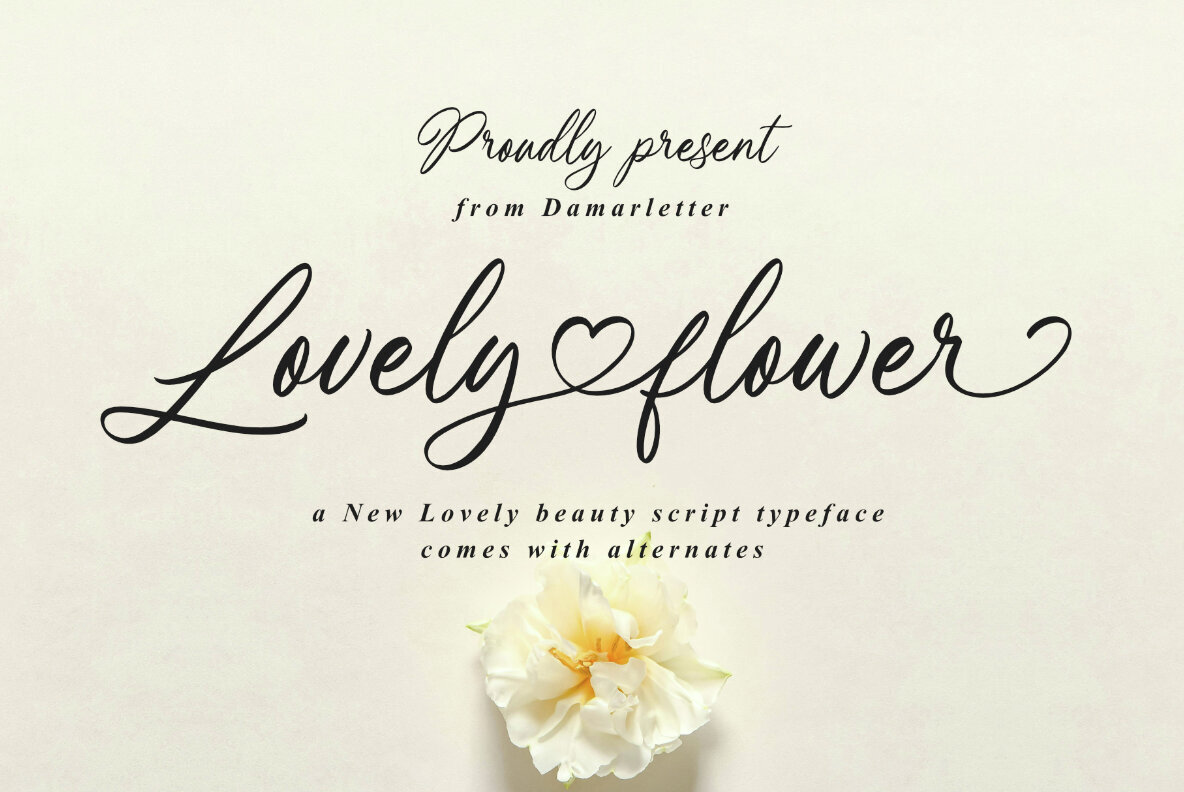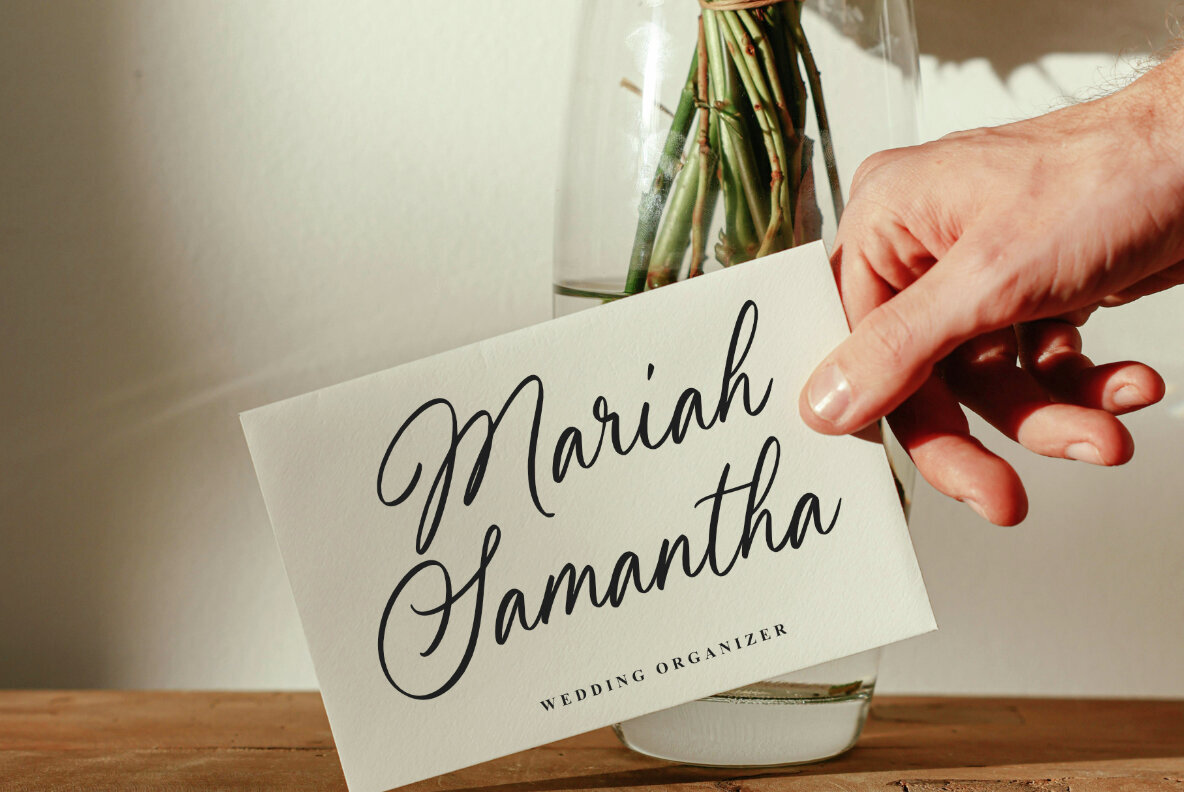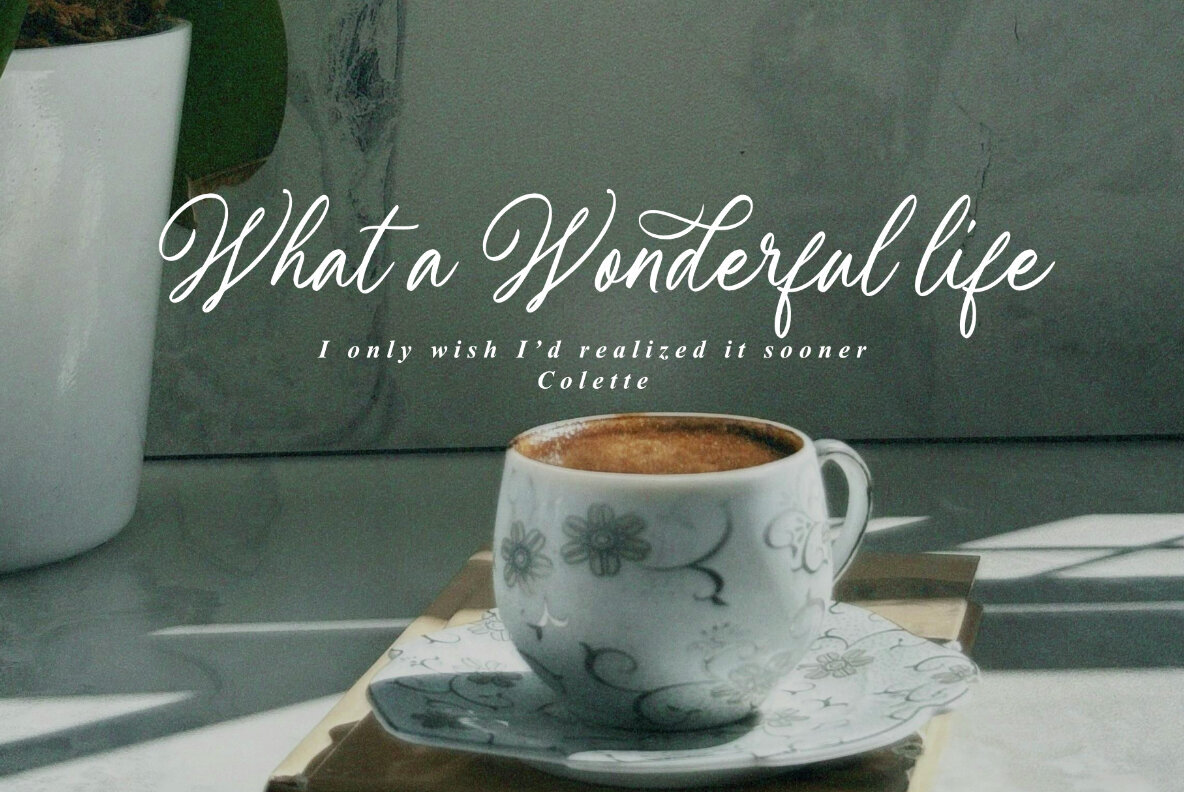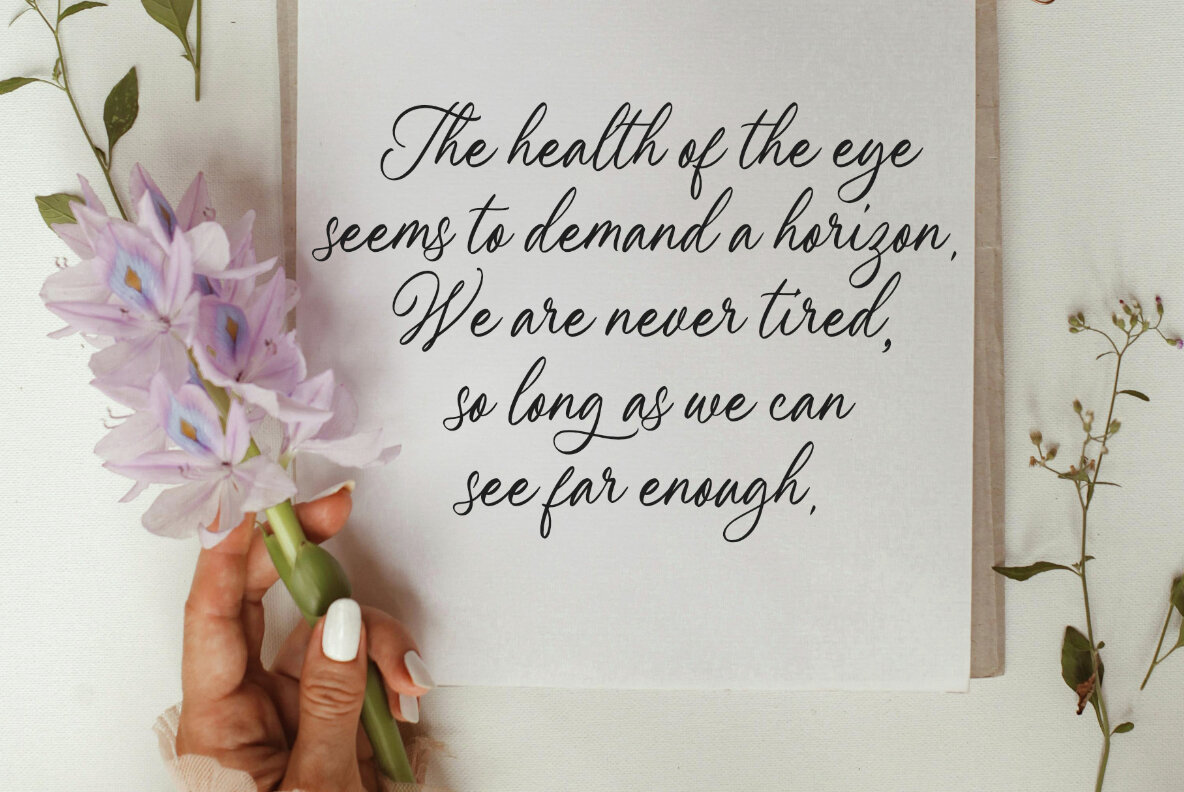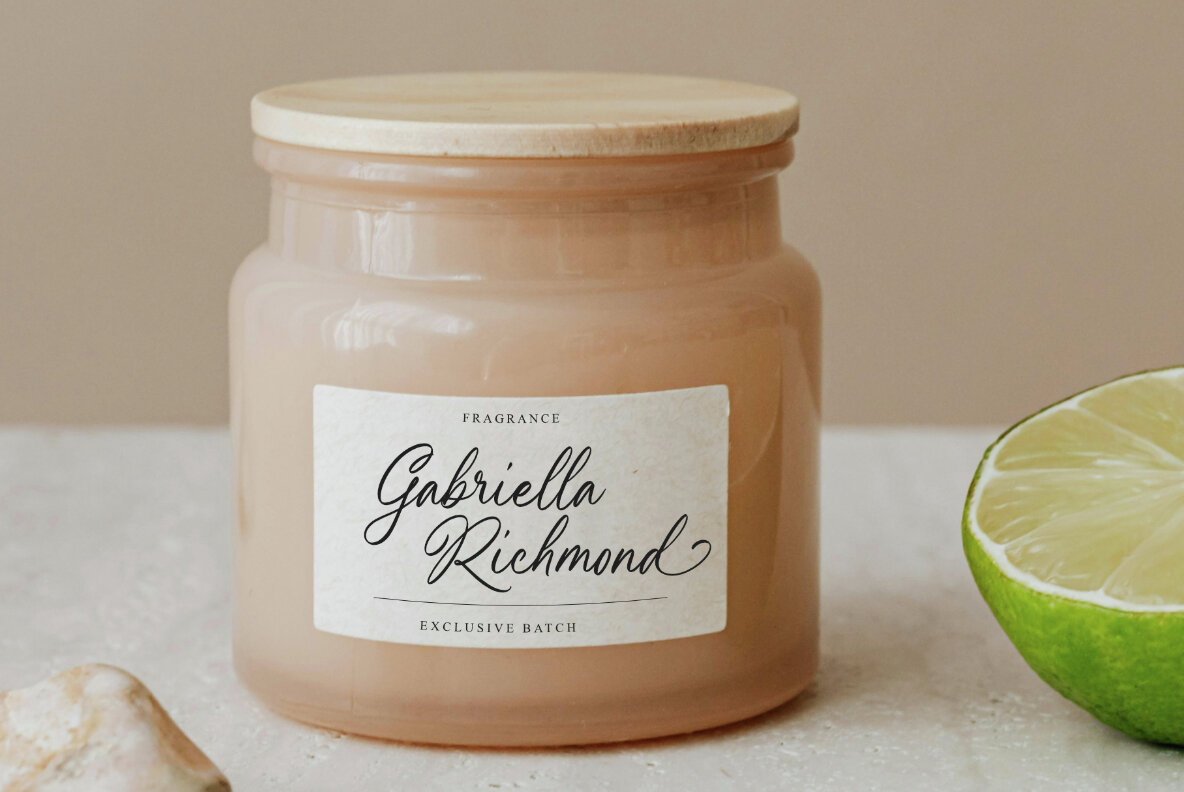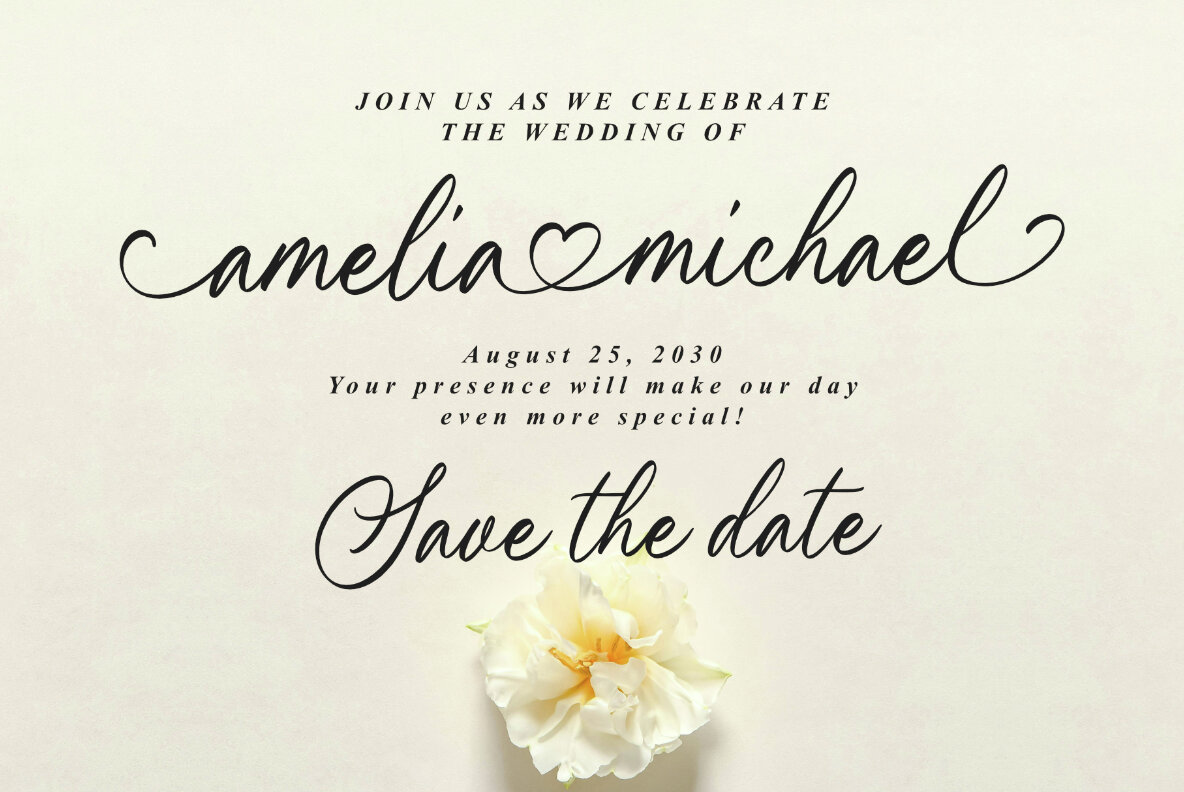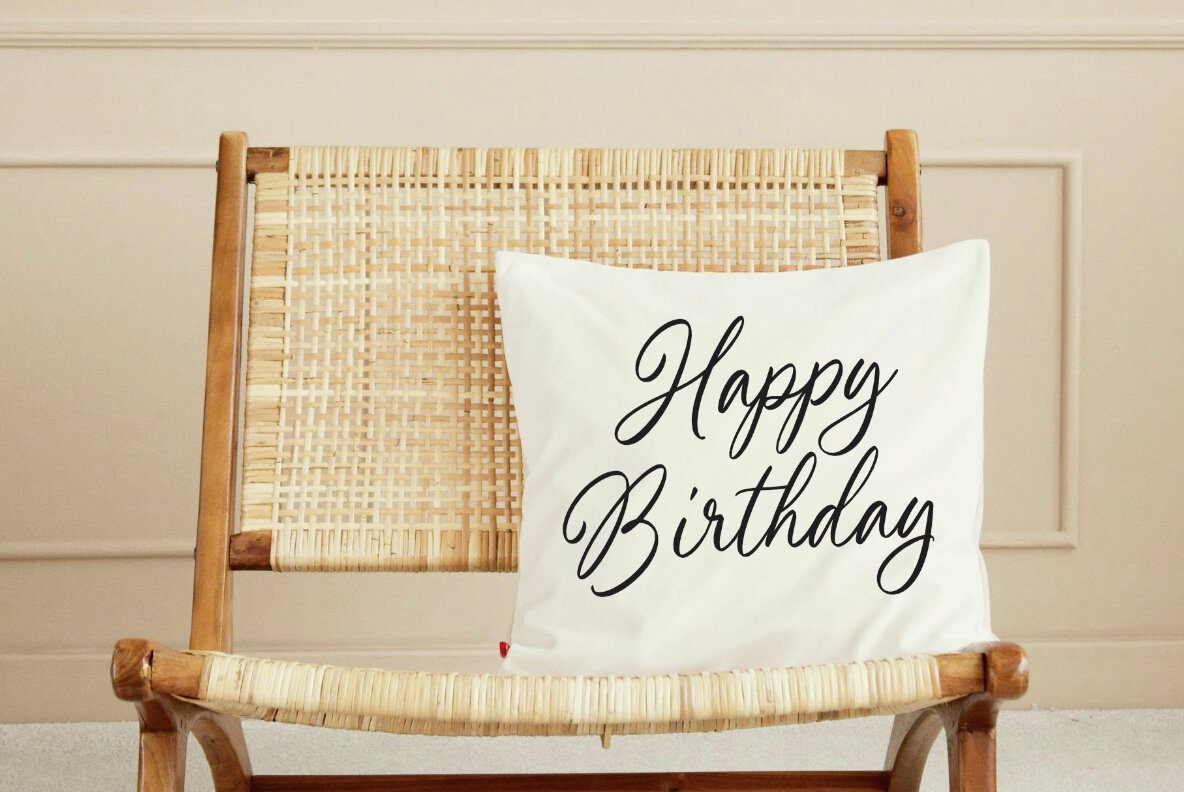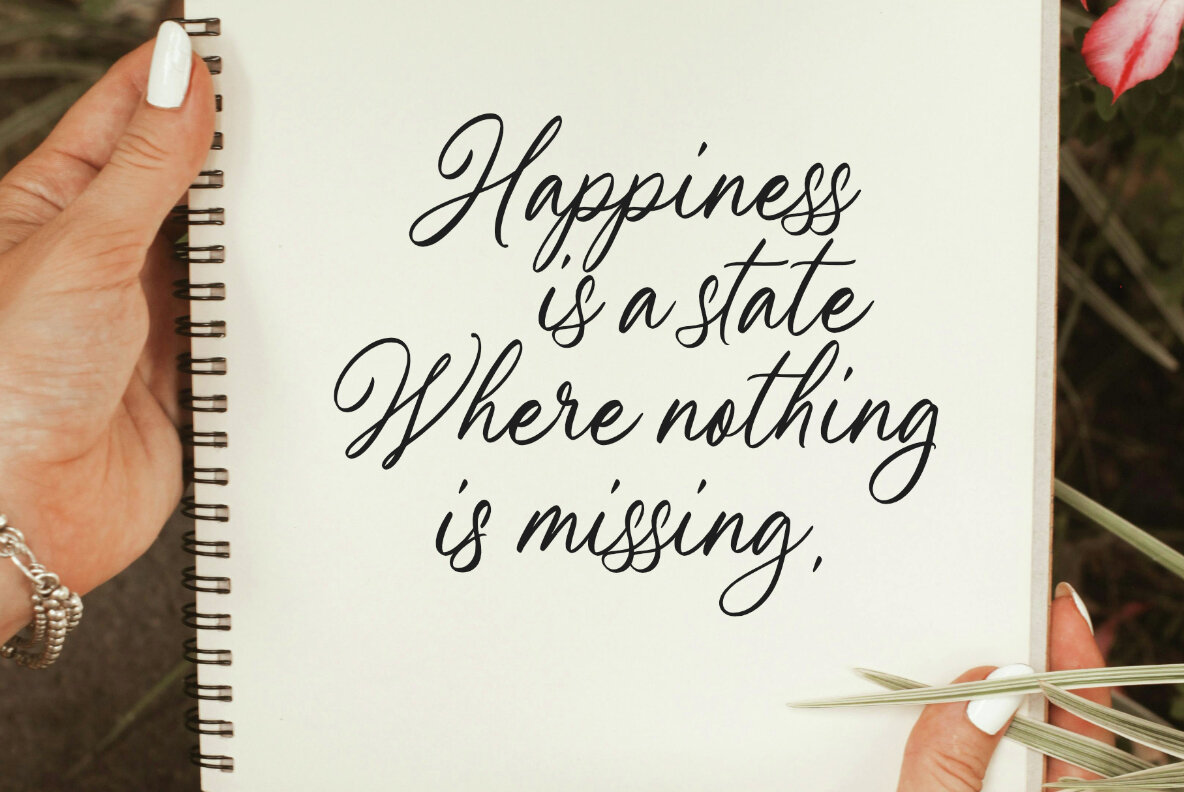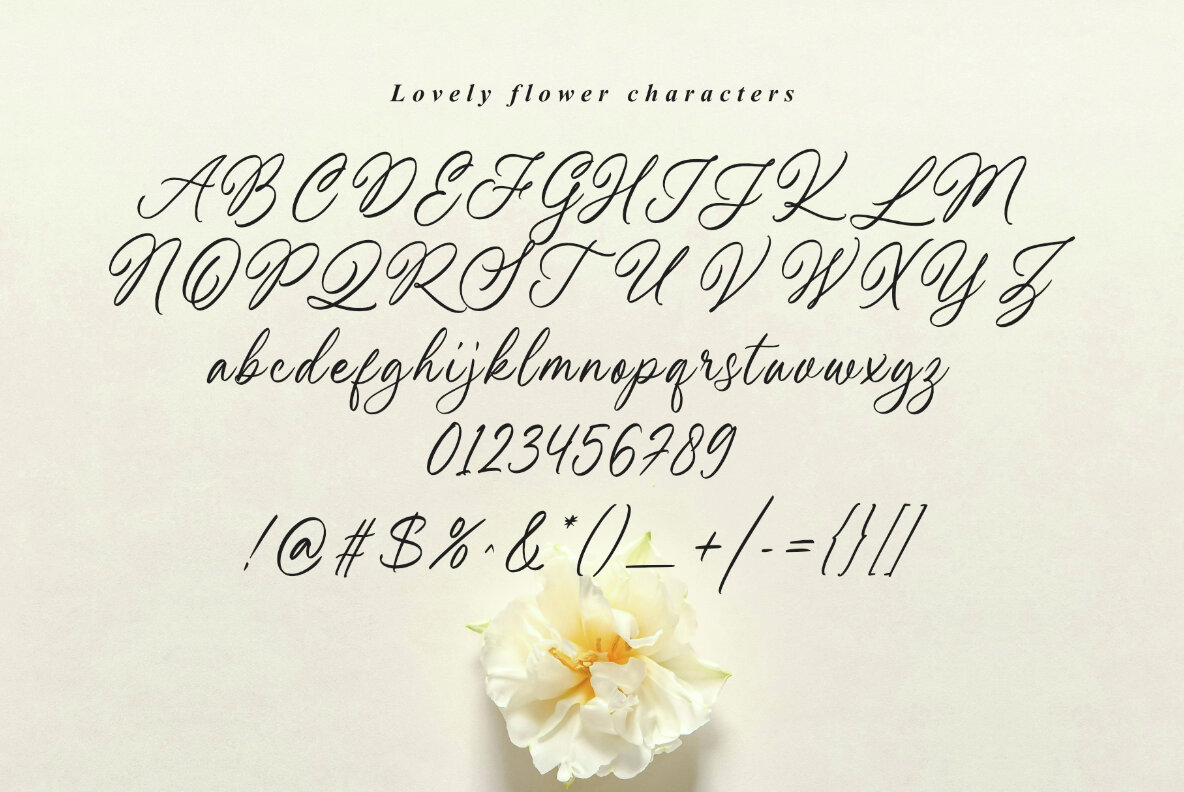
Lovely Flower Font
Lovely flower Regular
Lovely Flower is a typeface that epitomizes elegant beauty, making it an ideal choice for projects requiring a sophisticated touch. With its flowing script, this typeface enhances both traditional and modern designs.Lovely Flower: A Graceful Script Typeface